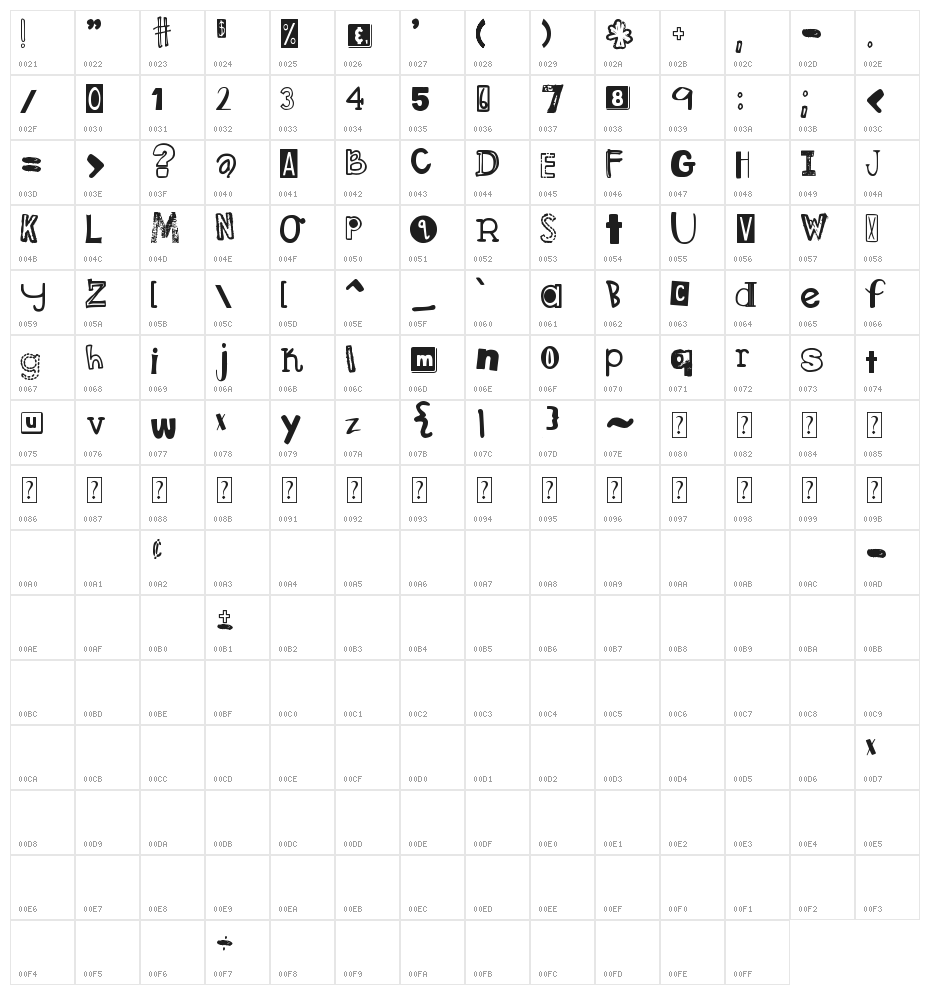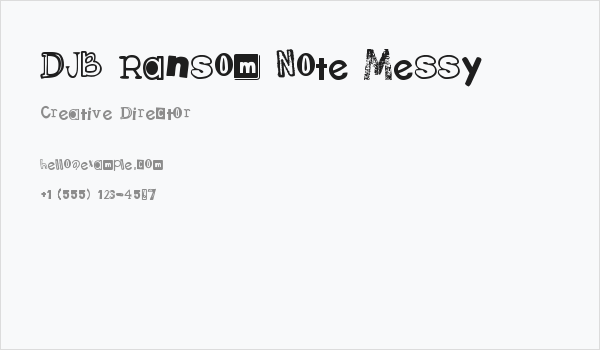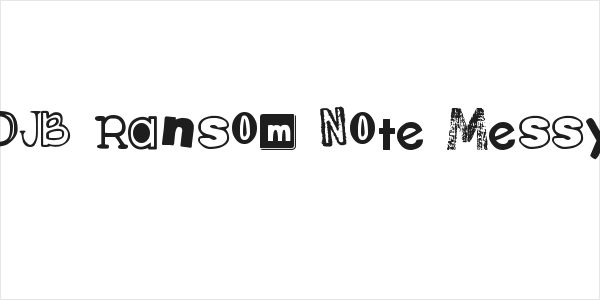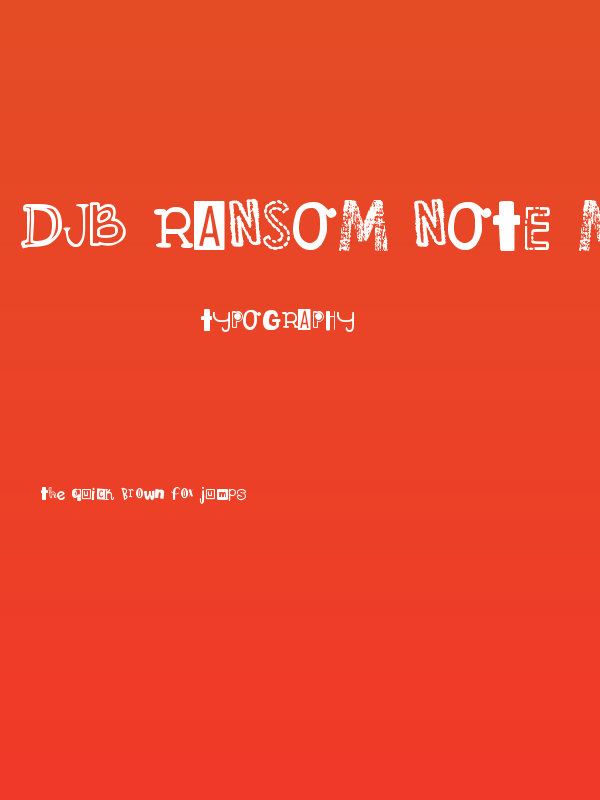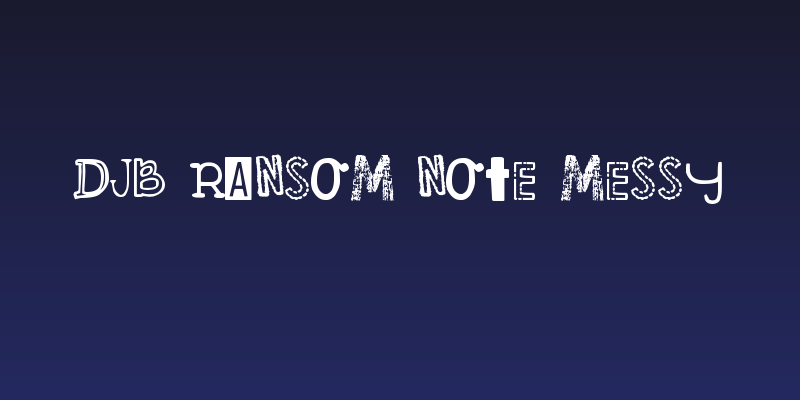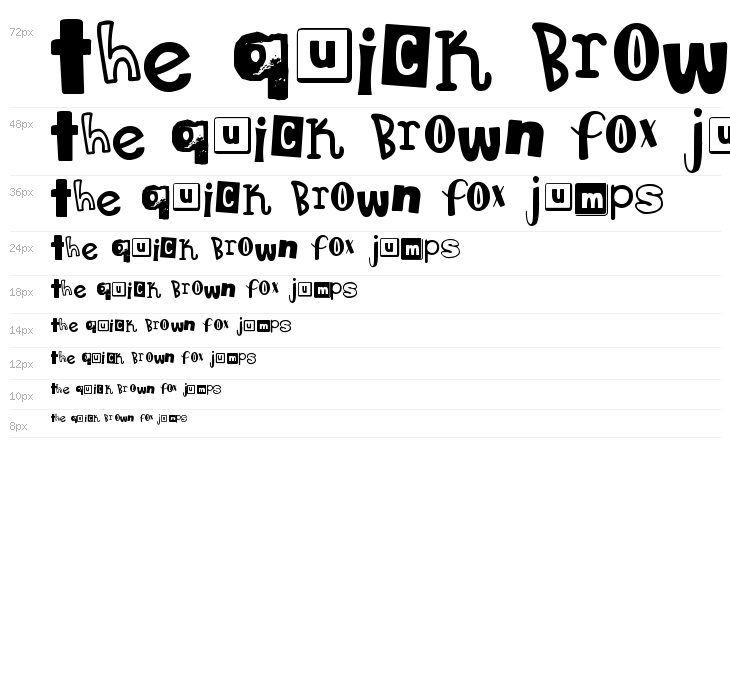
DJB Ransom Note Messy Font
DJB Ransom Note Messy Description
This font is a playful and eclectic mix of characters, each with its own unique style, reminiscent of cut-out letters from magazines or newspapers. The uppercase and lowercase letters are a blend of bold, outlined, and filled designs, with some characters featuring decorative elements like dots or stripes. Numbers and special characters follow the same quirky and varied aesthetic, adding to the font's overall chaotic charm. This font is perfect for projects that require a fun, informal, and slightly rebellious look.
| Use Case | Headlines, Posters, Creative Designs |
| Proposed Projects | Ideal for creative projects like posters, party invitations, scrapbook designs, and any work that benefits from a playful, informal style. |